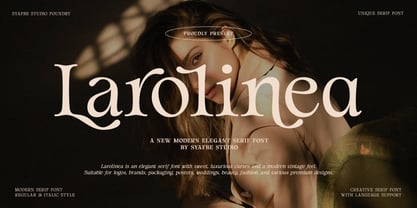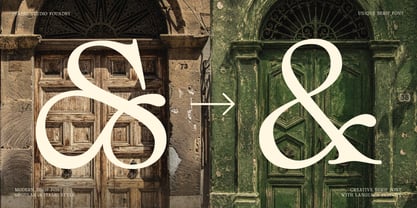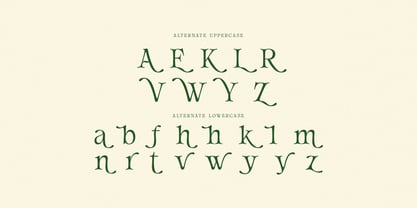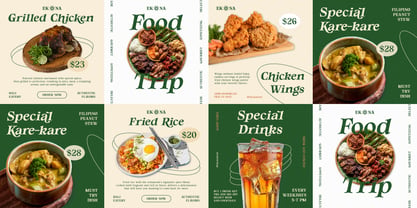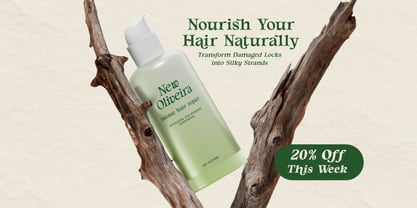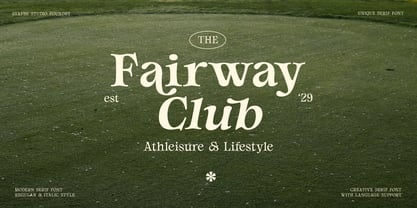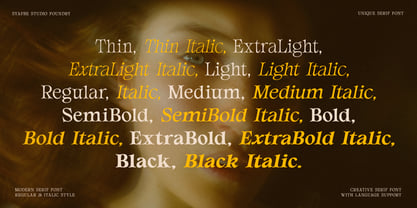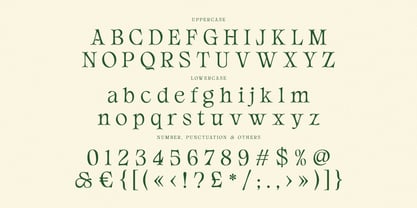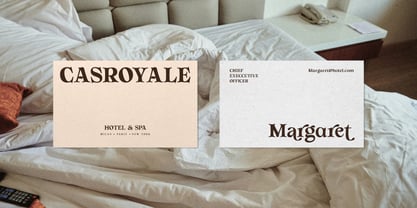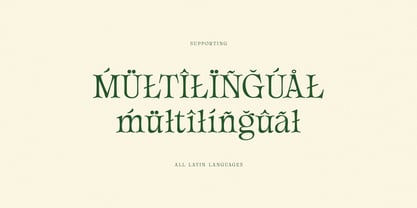
Larolinea
Larolinea Elegant & Vintage Serif Font
Larolinea is an elegant serif font that blends classic elegance with a soft, modern touch. Each curve of its letters is designed to convey a luxurious, refined, and distinctive feel, making it suitable for designs that seek a premium look without losing its warmth and personal touch.
Larolinea's philosophy stems from soft, flowing lines, like a story that grows from taste, beauty, and confidence. Its serif forms create a classic feel, while its curved letters convey a feminine, romantic, and exclusive feel. Larolinea is more than just a font, but a visual element that helps a brand appear more sophisticated and memorable.
This font is suitable for various design needs, such as logos, branding, product packaging, wedding invitations, posters, magazines, beauty products, fashion, perfumes, cafes, bakeries, and other premium businesses.
With Larolinea, every design feels more vibrant, elegant, and has a strong visual impact. This font helps brand messages appear more professional, more beautiful, and more appealing to the audience.